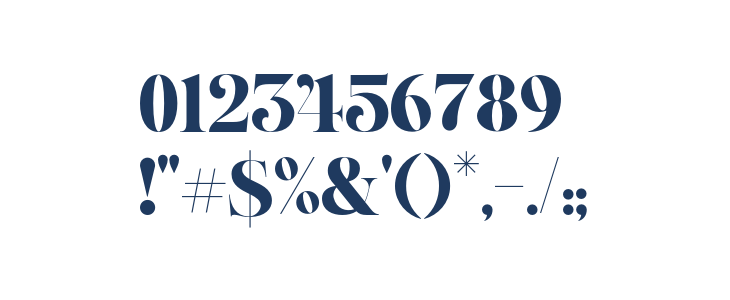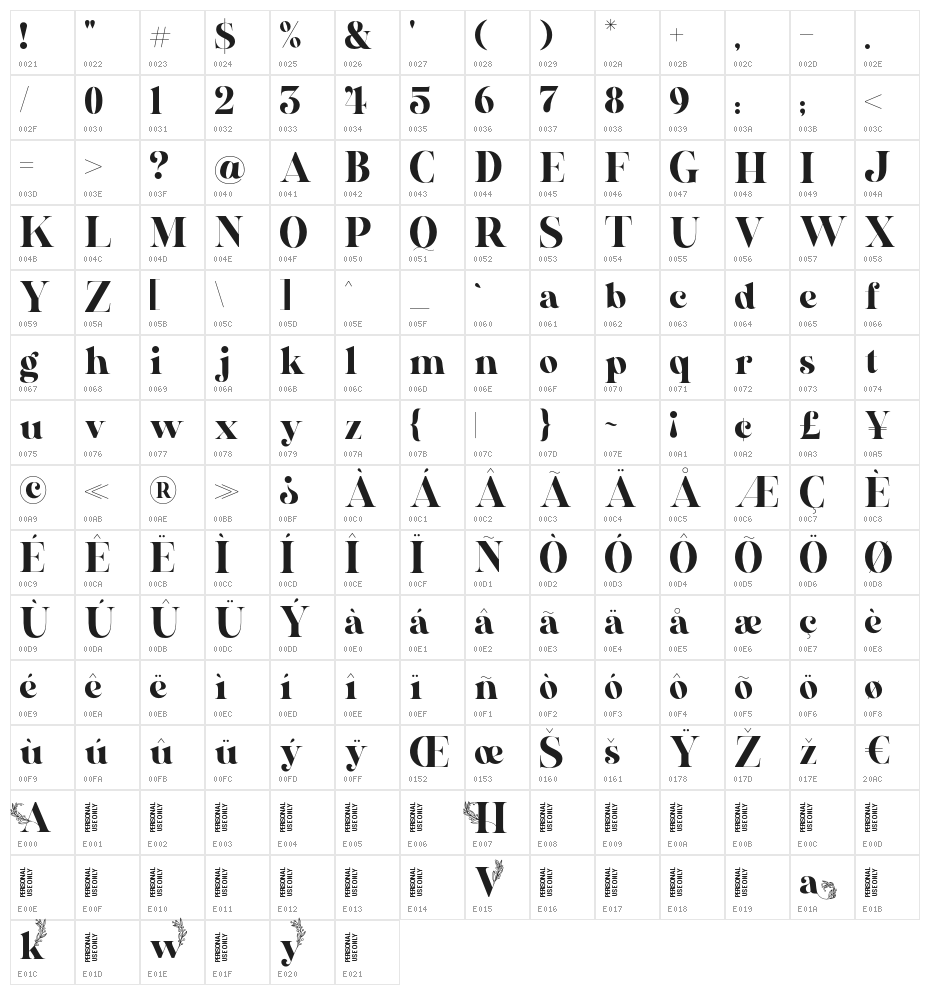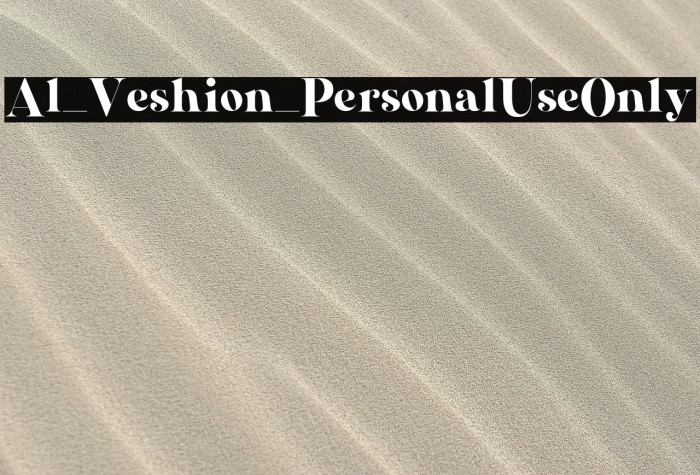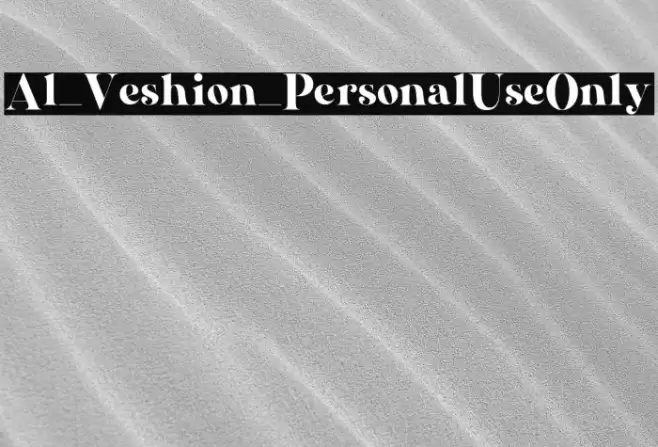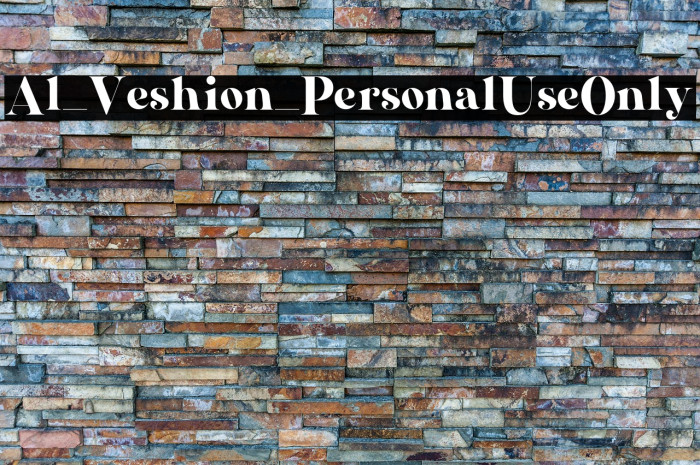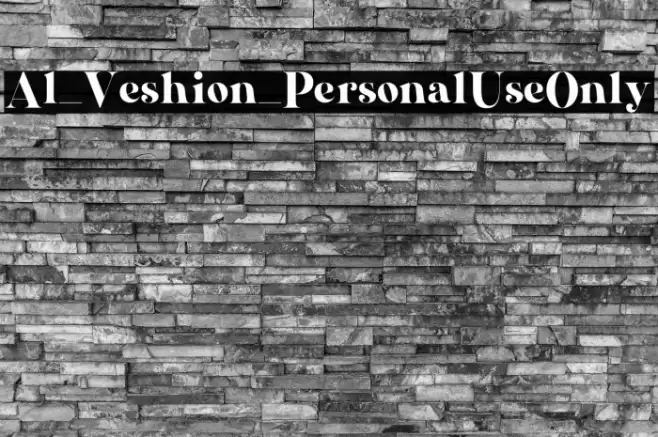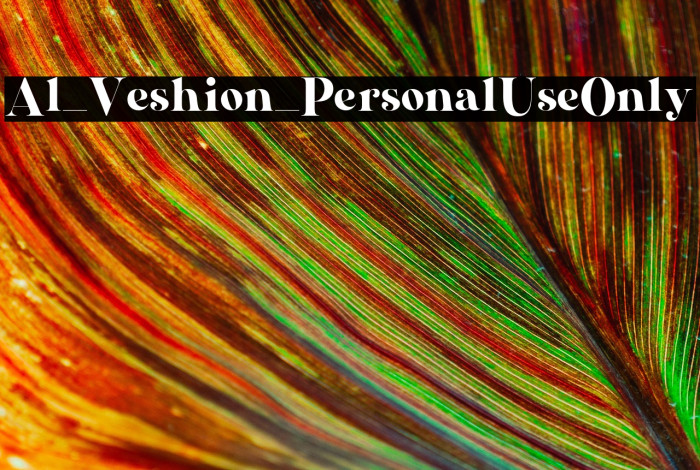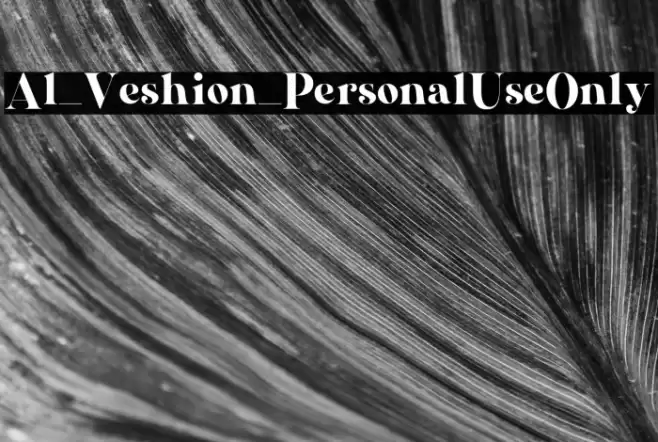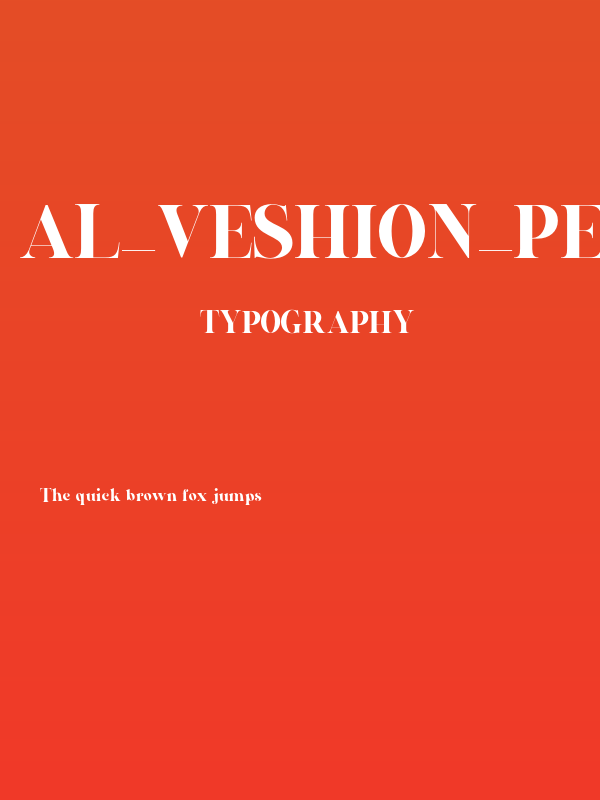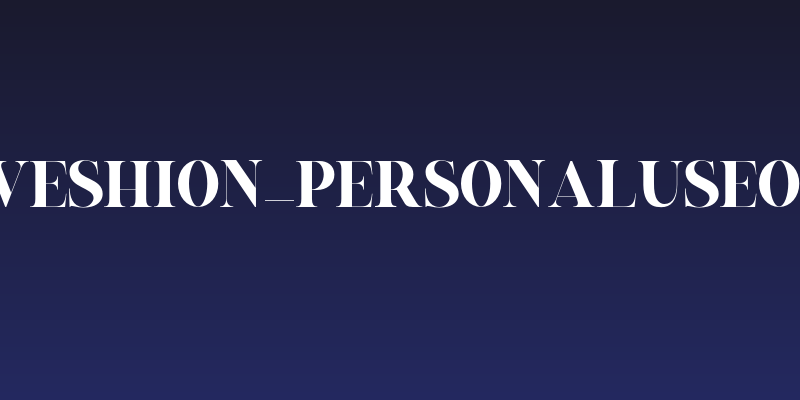
Al_Veshion_PersonalUseOnly Font
Al_Veshion_PersonalUseOnly Description
This font features a bold and dramatic style with high contrast between thick and thin strokes, giving it a striking and elegant appearance. The uppercase letters are characterized by sharp serifs and a strong vertical emphasis, while the lowercase letters maintain a consistent weight and style. The numerals are equally bold, with a distinctive flair that matches the overall aesthetic. Special characters are designed with the same attention to detail, ensuring a cohesive look across all glyphs. This font's unique style makes it suitable for projects that require a touch of sophistication and impact.